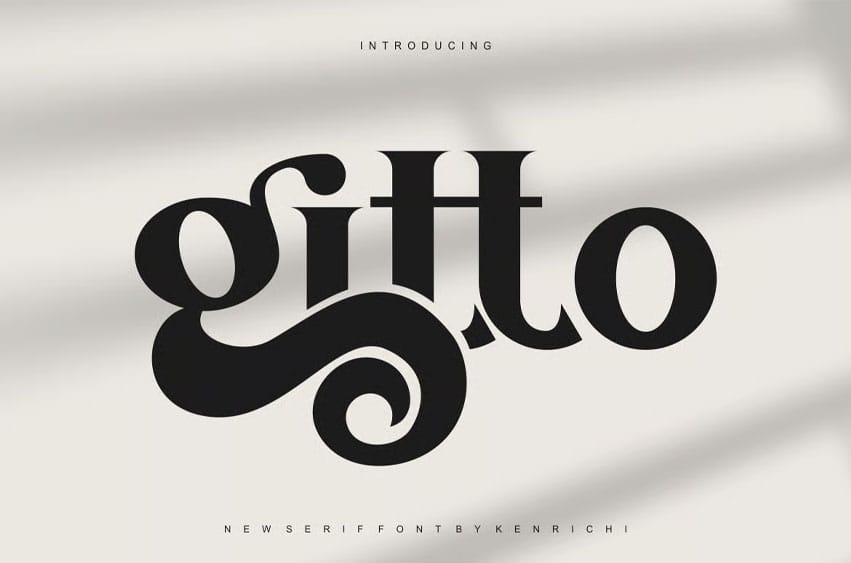
Gitto Font is a modern and authentic font. Perfect for both professional and branding needs of a product. This font is suitable for any branding project like quotes, logo, blog headers, posters, branding, letter, invitation, stationery, etc.
Designed as a versatile and flexible tool that can be used on a range of projects and media.
- outstanding in a wide range of contexts.